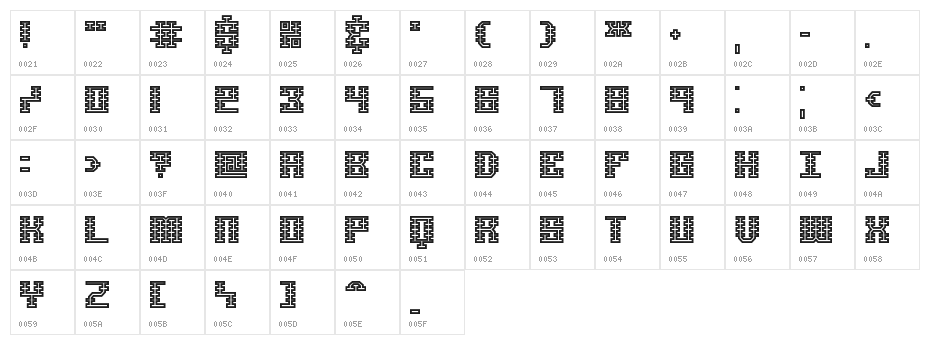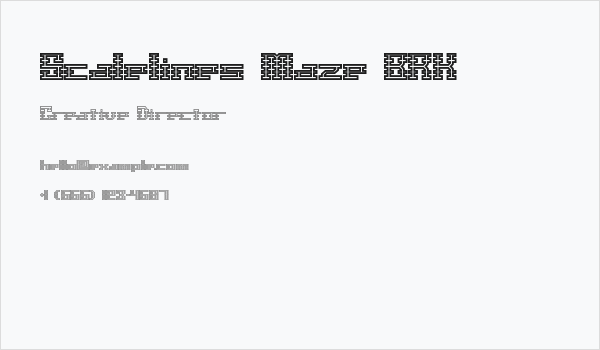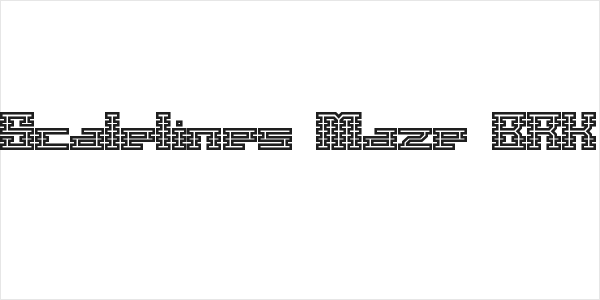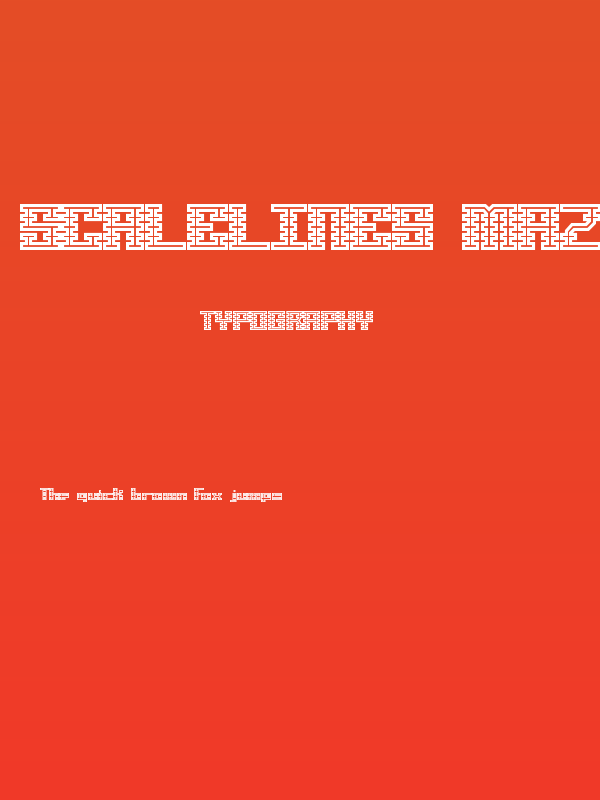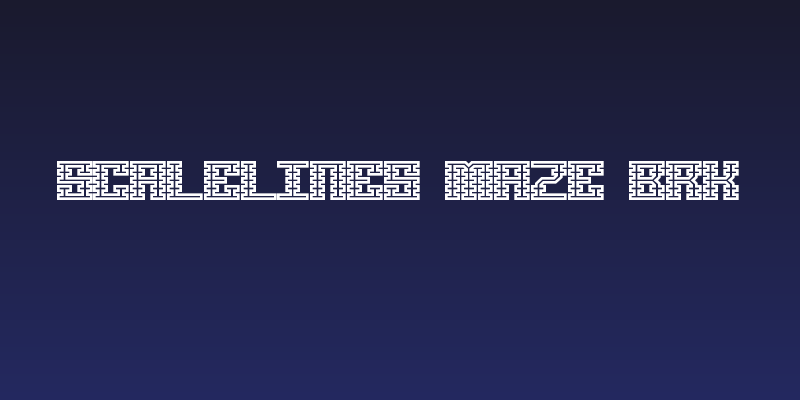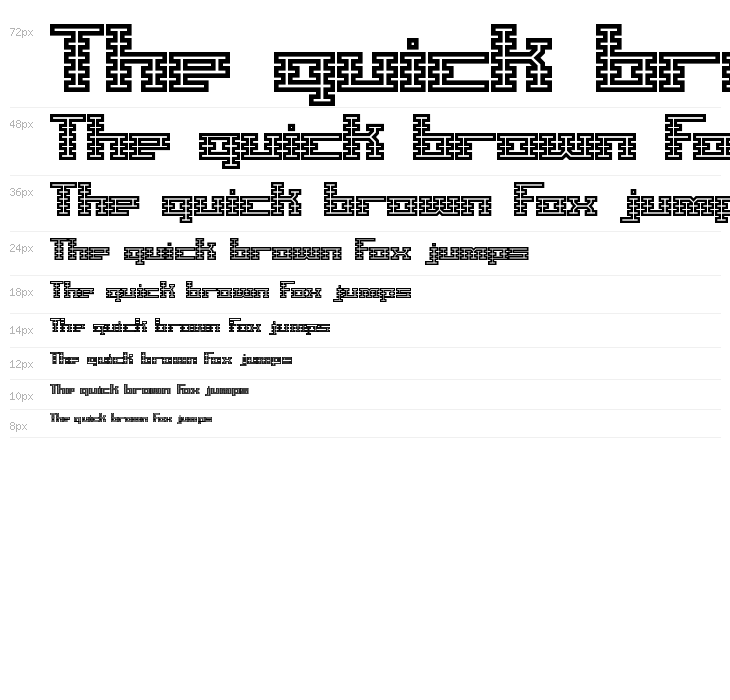
Scalelines Maze BRK Font
Scalelines Maze BRK Description
This font features a unique maze-like design, with intricate patterns forming each character. The letters are constructed with a series of interlocking lines, creating a complex and visually engaging appearance. The geometric style is consistent across uppercase, lowercase, numbers, and special characters, making it a cohesive choice for projects that require a bold and decorative touch. The font's structure is reminiscent of labyrinths, offering a sense of mystery and intrigue. Its distinctiveness makes it stand out, ideal for creative and artistic applications.